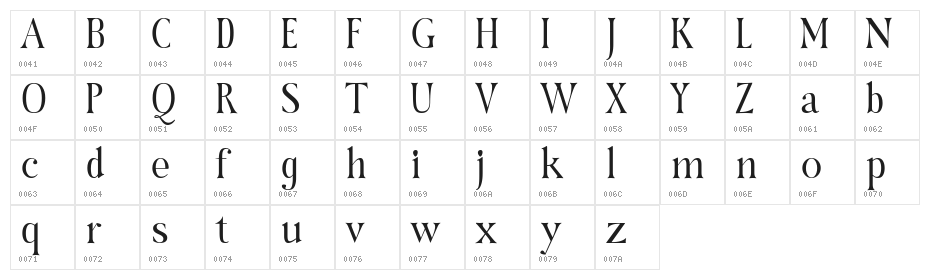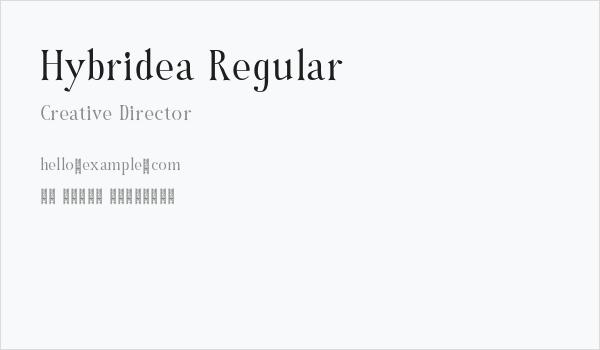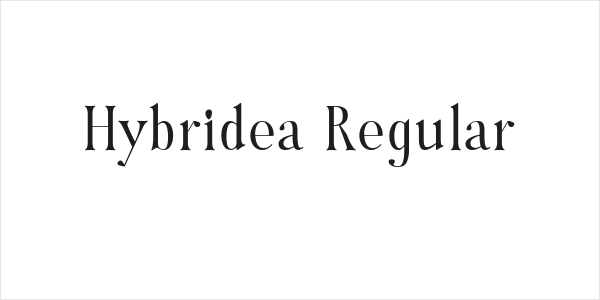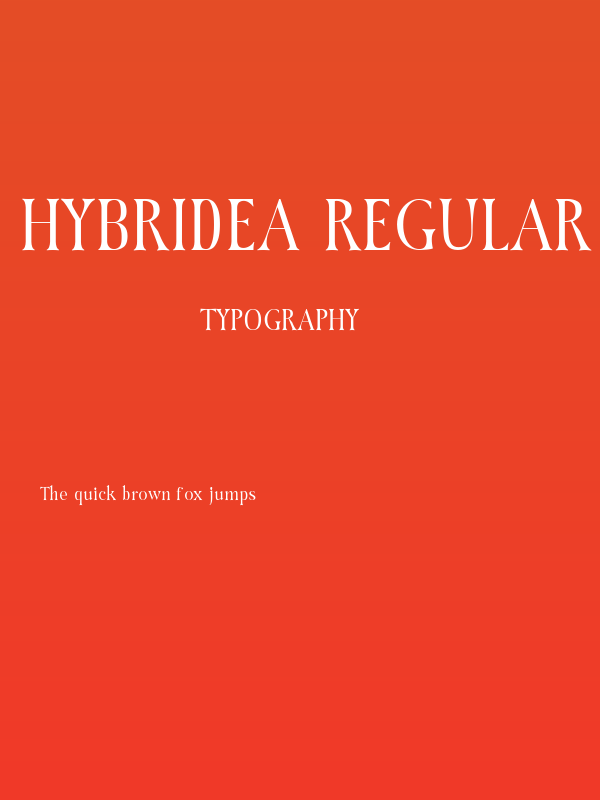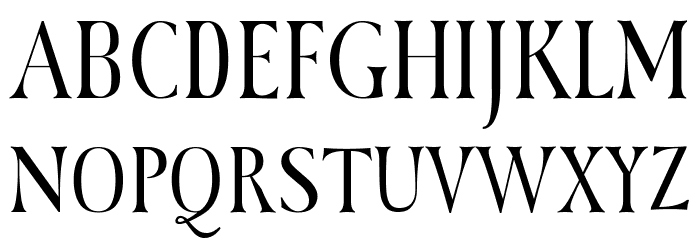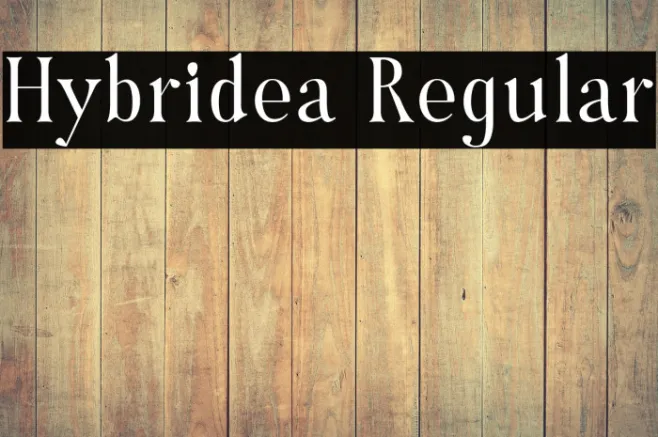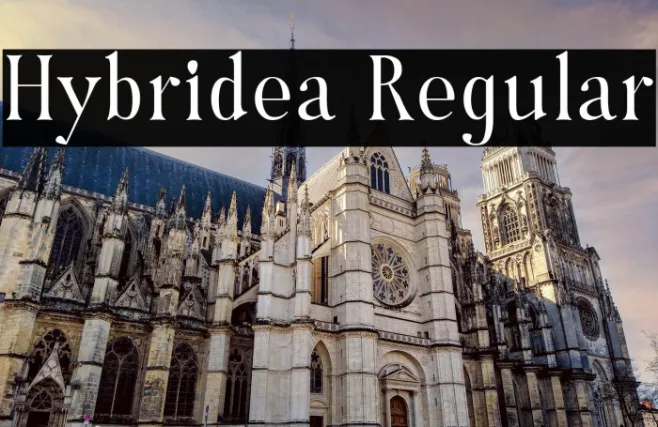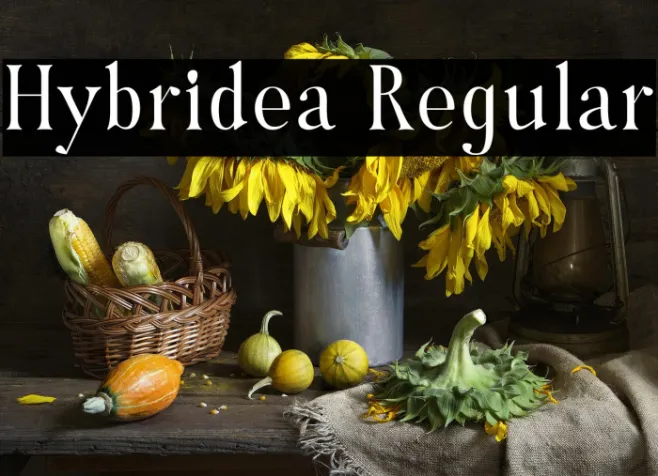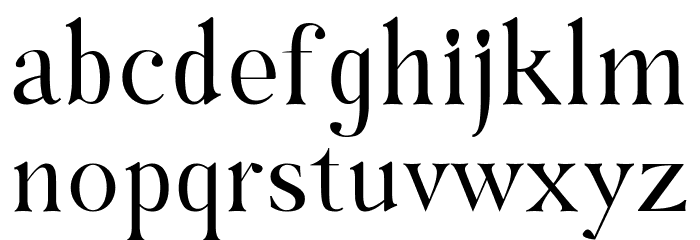
Hybridea Regular Font
Hybridea Regular Description
This font features a unique blend of classic serif elements with a modern twist. The characters have a distinct elegance, with slightly elongated serifs and a subtle curvature that adds a touch of sophistication. The uppercase letters are bold and commanding, while the lowercase letters maintain a graceful flow. The overall design is balanced, with a moderate contrast between thick and thin strokes, giving it a refined appearance. The font's versatility makes it suitable for a variety of design projects, offering both readability and style.
| Proposed Projects | Ideal for branding, editorial design, book covers, and elegant invitations. |